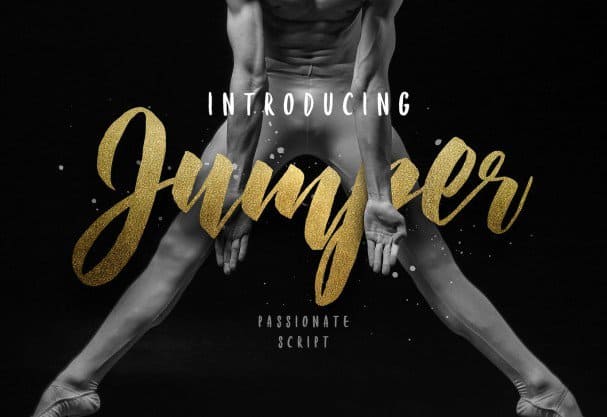
Jumper Script Font
The Jumper Script Font falls into the category of elegant fonts, resembling the Lucy Script font in a font preview. It is widely known for its text generator feature.
This font is multipurpose and bendy, make its miles had to tell with a few specific typefaces to create some suitable assignments paying homage to wed ceremony invitation, antique format.